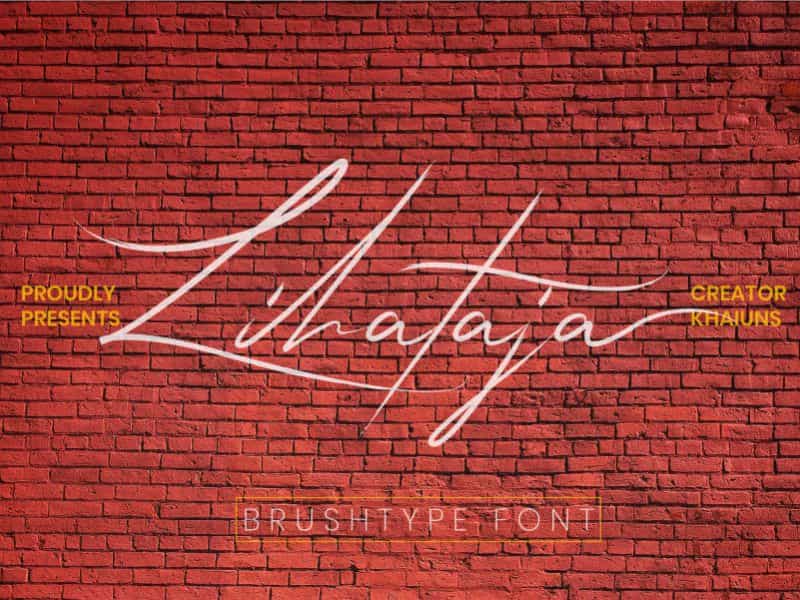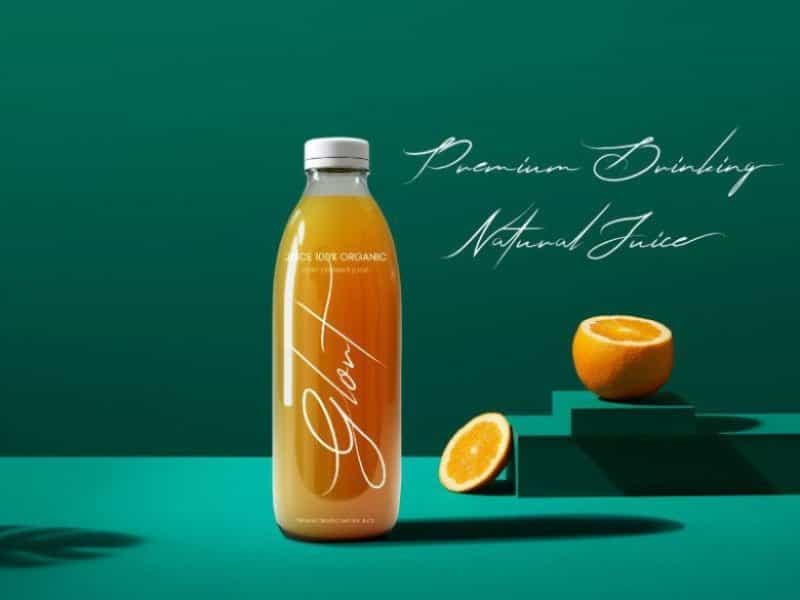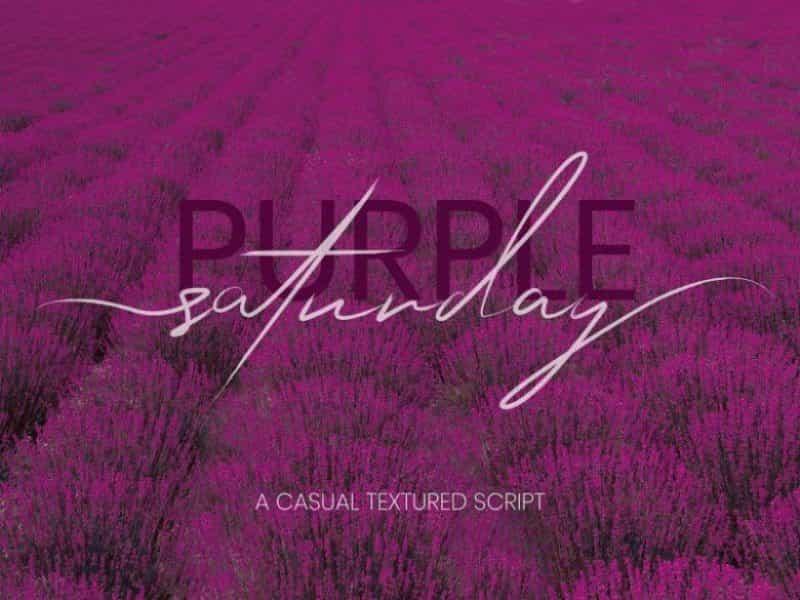
Lihataja stands for incredible elegance and smoothness of the material. It appears very beautiful on the wedding invitation cards, thank you cards, quotes, greeting cards, logos, business cards, and on everything that requires that ‘handmade’ feel. It also has a varying baseline, smooth lines, attractive glyphs, and stunning alternates.